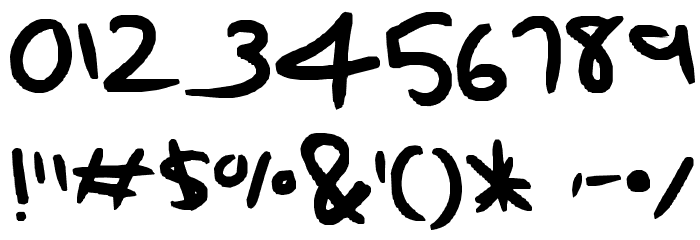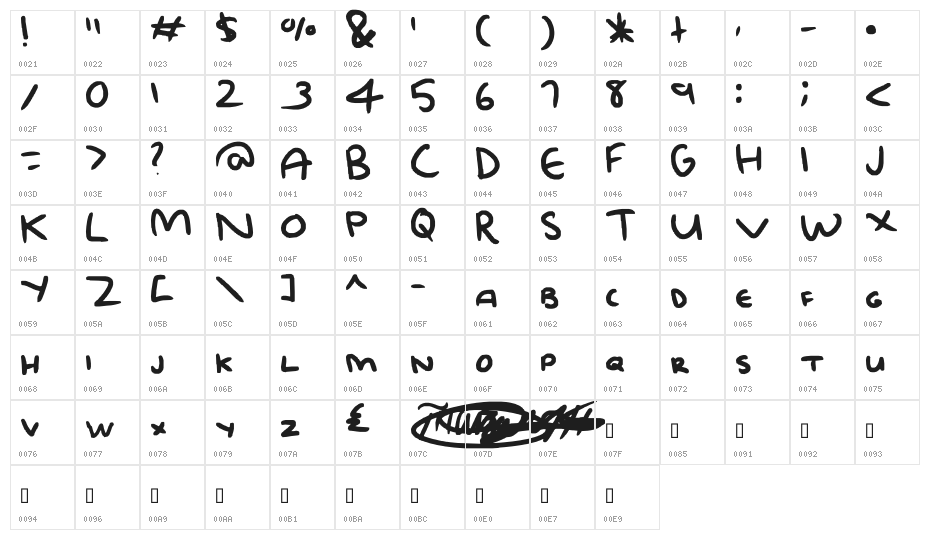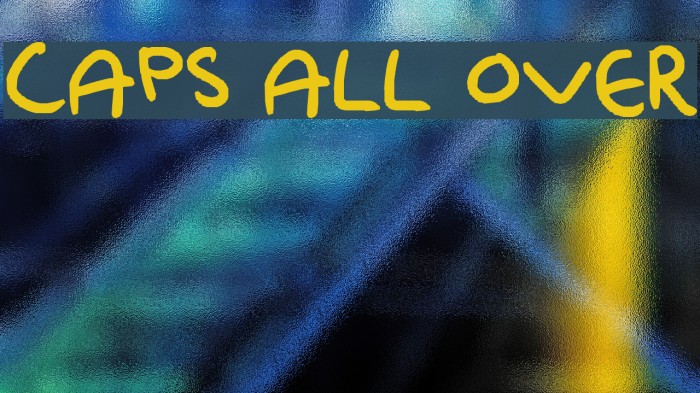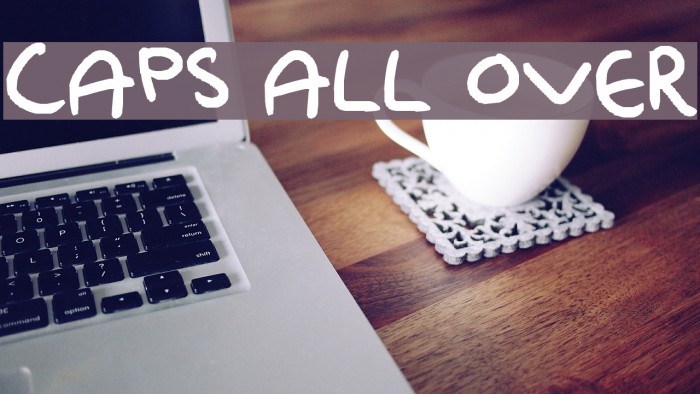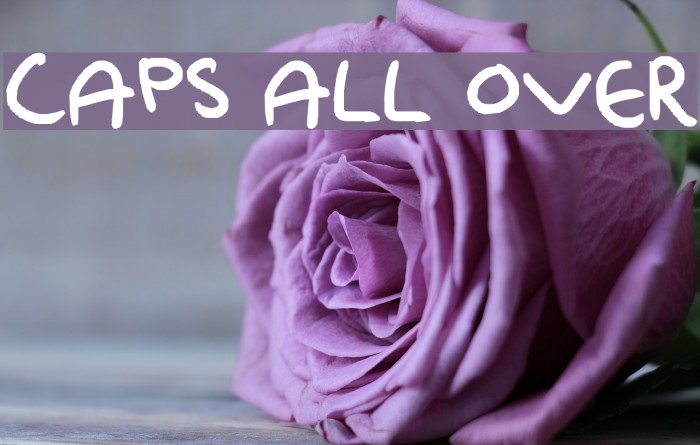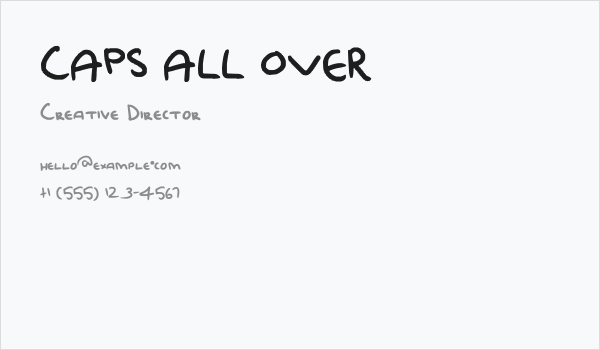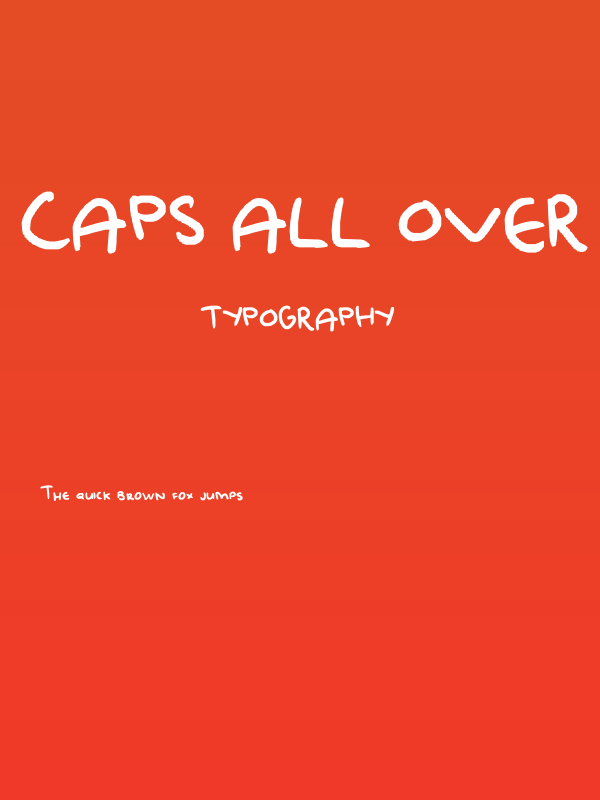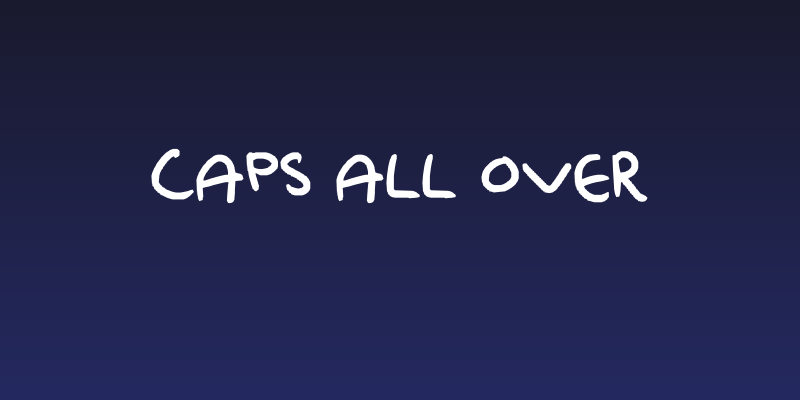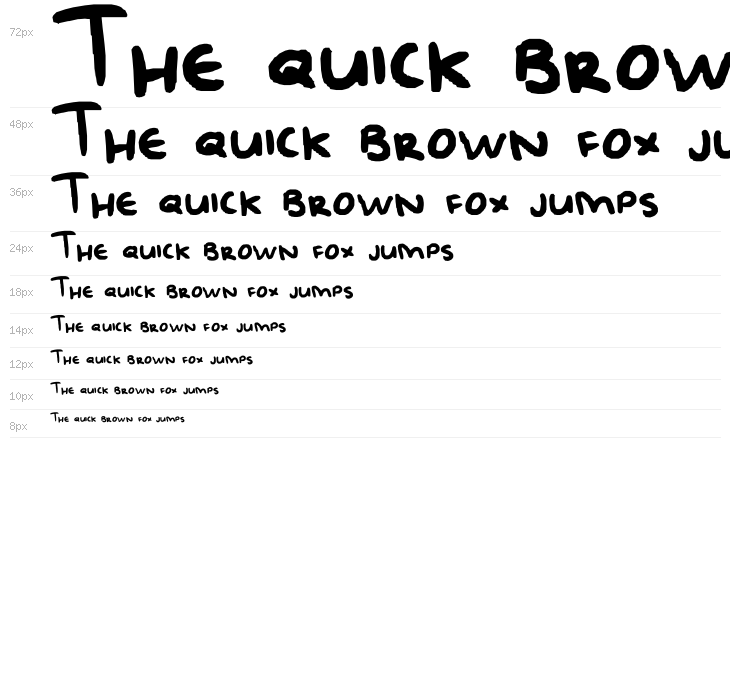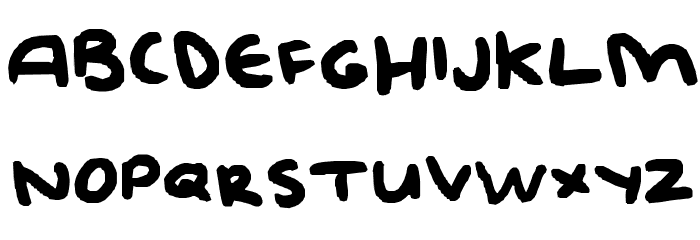
CAPS ALL OVER Font
CAPS ALL OVER Description
This font features a bold, handwritten style with a playful and casual appearance. The characters are rounded and slightly irregular, giving it a personal and informal touch. The uppercase and lowercase letters maintain a consistent style, with a noticeable emphasis on curves and loops. The numbers and special characters follow the same aesthetic, ensuring a cohesive look across all elements. The font's organic feel makes it suitable for projects that require a human touch, such as invitations, greeting cards, or creative branding materials.
| Proposed Projects | Ideal for invitations, greeting cards, creative branding, and personal projects. |